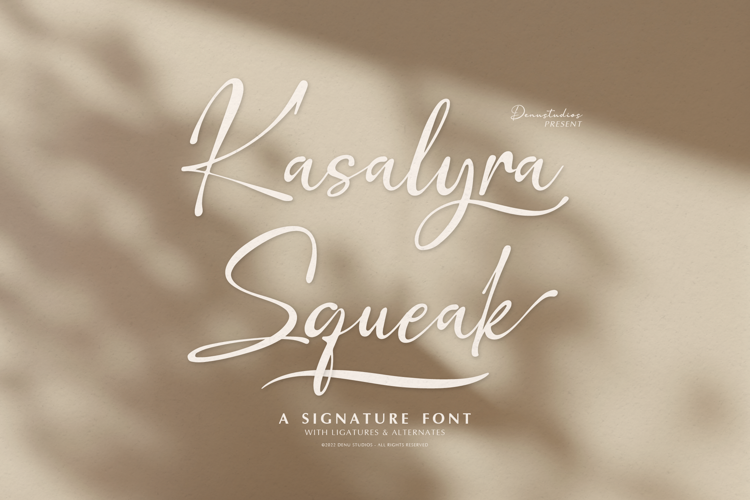
Kasalyra Squeak Font
Kasalyra Squeak | Signature Font product packaging, mugs, quotes, posters, shopping bags, t-shirts, book covers, name card, invitation cards, greeting cards, label, photography, watermark, special events, and all your other lovely projects that need a Signature Font taste.